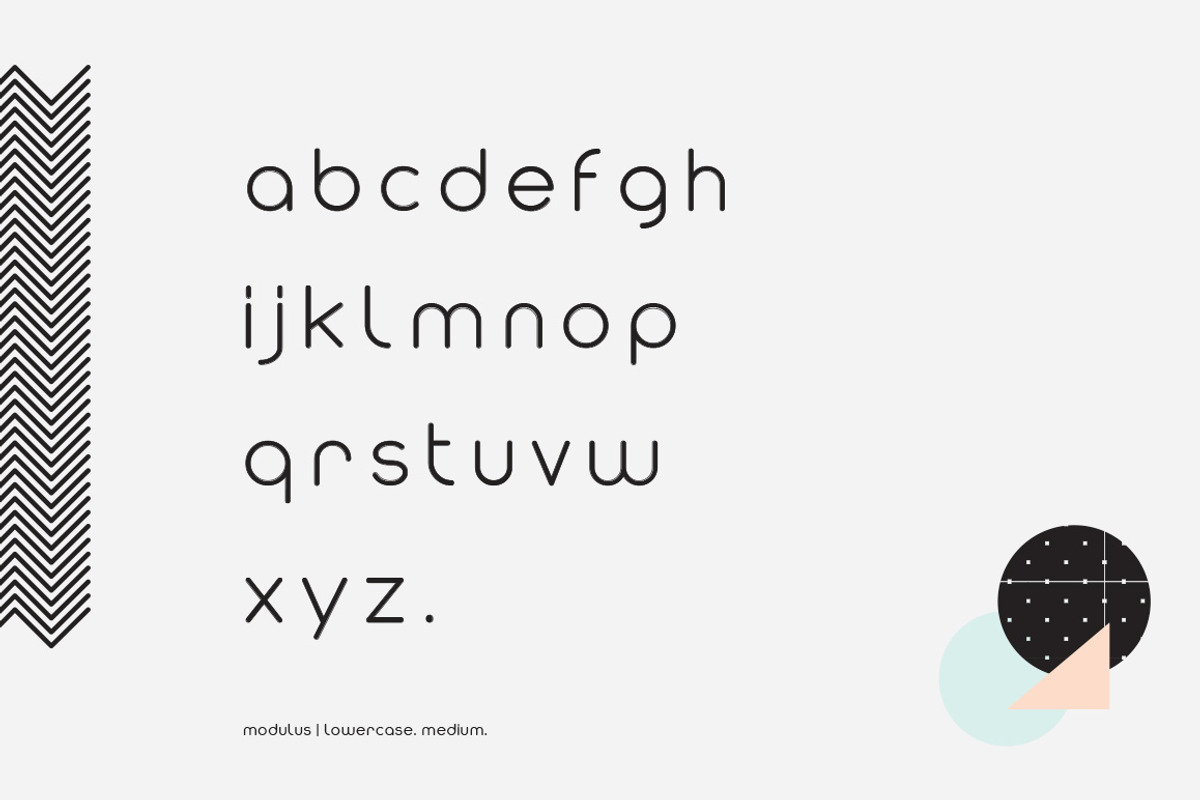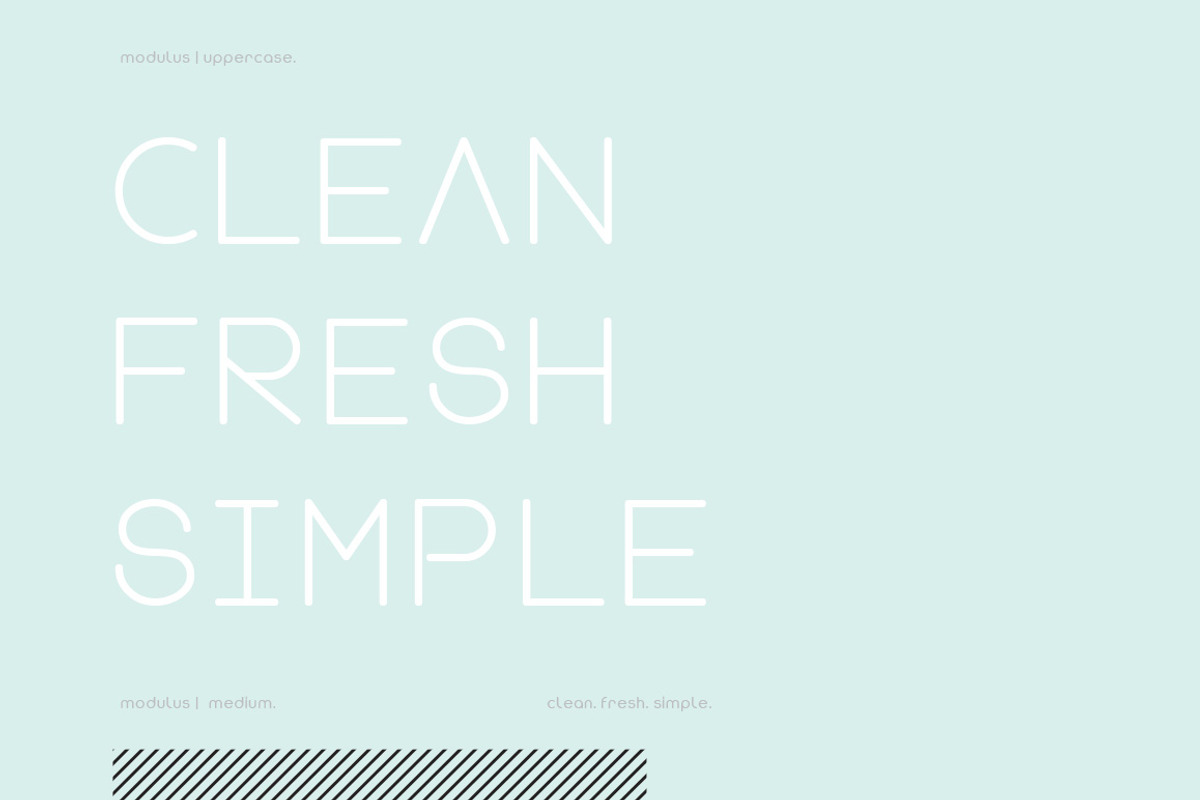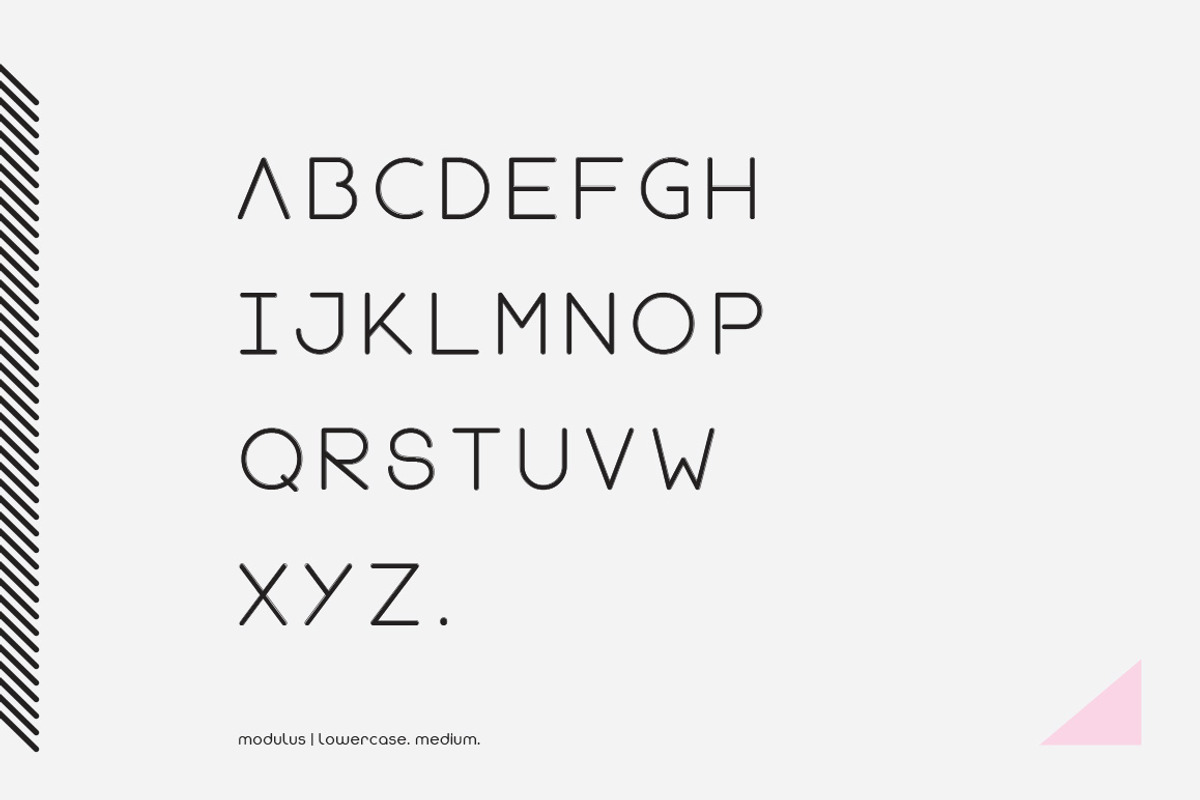
Modulus Font
Modulus is a clean, minimal, modern sans typeface. It looks smooth in any layout with its sleek rounded lines, use it for your magazines, brochures and editorial layouts. Modulus makes awesome headings, it looks great on its own or with imagery, body copy looks neat and tidy. Modulus is one to add to your font collection.